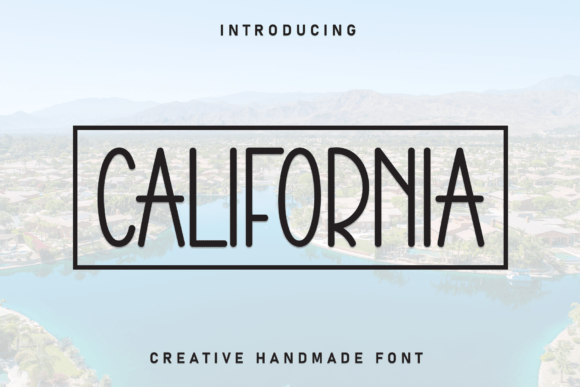
The California Font: A Perfect Blend of Simplicity and Warmth
Have you ever been in the middle of a design project, and suddenly, you’re stuck on finding the perfect font? I recall a recent experience where I was working on a branding project for a new coffee shop. The client wanted a font that was modern, yet approachable, and I just couldn’t seem to find the right fit. That’s when I stumbled upon the California font, and it instantly clicked. In this article, we’ll dive into the world of California font, exploring its features, uses, and what makes it a fantastic addition to any design project.
A Personal Review: What I Love About California Font
So, what makes California font so special? Here are a few things that I absolutely love:
• ✨ Clean lines and balanced letterforms: The font’s simplicity is its greatest strength. The clean lines and balanced letterforms make it easy to read and visually appealing.
• ✅ Subtle rounded edges: The subtle rounded edges give the font a friendly and approachable vibe, making it perfect for designs that require a warm touch.
• 💡 Versatility: California font is incredibly versatile, making it suitable for a wide range of design projects, from branding and headlines to packaging and digital content.
While California font is an excellent choice, there are a few minor quirks to be aware of:
• 🤔 Limited use of OpenType features: While California font does offer some OpenType features, it’s not as extensive as some other fonts on the market.
• ⚠️ May not be suitable for body text: Due to its display nature, California font may not be the best choice for body text, as it can be a bit too ornate for long blocks of text.
The Backstory Behind California Font
California font was designed with the intention of creating a modern, yet approachable font that captures the essence of the West Coast. The designer aimed to create a font that was both clean and friendly, with a subtle touch of warmth. The result is a font that’s perfect for designs that require a touch of sophistication and approachability.
Q: What is California font?
A: California font is a casual and neat display font that combines simplicity with a friendly, approachable vibe.
Q: What is California font best used for?
A: California font is ideal for branding, headlines, packaging, and digital content, as it adds a warm and inviting touch to any design.
Q: Is California font suitable for body text?
A: While California font can be used for body text, it’s primarily designed as a display font, so it may not be the best choice for long blocks of text.